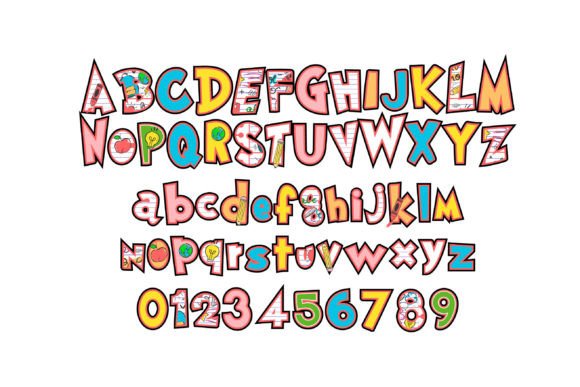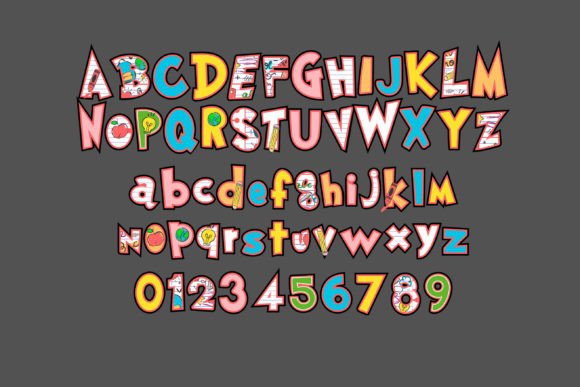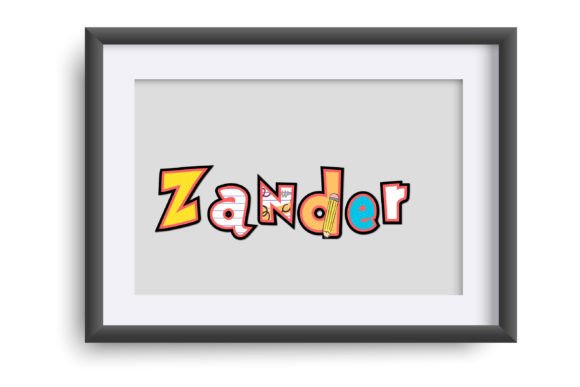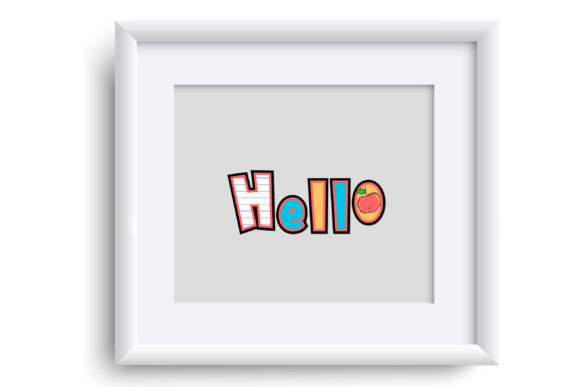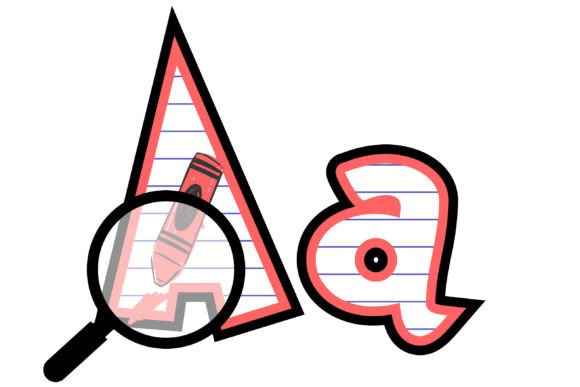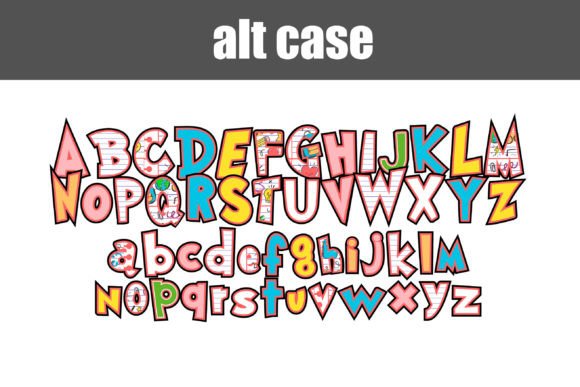
Introducing the Going to School Font: A Fun and Colorful Addition to Your Design Arsenal
Are you a designer, crafter, or educator looking for a unique and engaging font to add some personality to your projects? Look no further than the Going to School Font! This full-color font features youthful lettering filled with school prints and supplies, making it perfect for a variety of creative endeavors. In this article, we’ll take a closer look at the Going to School Font, its features, and how to use it in your designs.
A Font that’s as Colorful as a Classroom
The Going to School Font is a one-of-a-kind font that combines fun and functionality. Its full-color design features a playful, hand-drawn style that’s reminiscent of school supplies and prints. Each letter is carefully crafted to bring a sense of nostalgia and whimsy to your designs. Whether you’re creating materials for a school project, designing crafts for kids, or simply looking for a font that adds some personality to your work, the Going to School Font is an excellent choice.
What Makes this Font Special?
So, what sets the Going to School Font apart from other fonts? Here are a few key features that make it a standout:
- Full-color design: Unlike traditional fonts that are limited to a single color, the Going to School Font features a full-color design that adds depth and visual interest to your projects.
- Youthful lettering: The font’s playful, hand-drawn style is perfect for designs that require a youthful and energetic feel.
- School-themed prints and supplies: The font’s design is inspired by school prints and supplies, making it a great fit for school projects, educational materials, and crafts.
- Alt case: The font also features an alternate case that can be accessed with another color of each letter, adding even more versatility to your designs.
Tips and Ideas for Using the Going to School Font
Now that you know more about the Going to School Font, here are some tips and ideas to get you started:
- Create fun and educational materials: Use the font to create engaging materials for kids, such as worksheets, posters, and activity sheets.
- Design crafts and DIY projects: The font’s playful style makes it perfect for crafting and DIY projects, such as making cards, gift tags, and other paper crafts.
- Add personality to your designs: Use the Going to School Font to add a touch of whimsy and personality to your designs, whether you’re creating materials for a school project or designing for a client.
In conclusion, the Going to School Font is a unique and engaging font that’s perfect for designers, crafters, and educators. Its full-color design, youthful lettering, and school-themed prints and supplies make it a great fit for a variety of creative projects. With its easy installation and compatibility with popular design programs, you can start using the Going to School Font to add some fun and personality to your designs today!